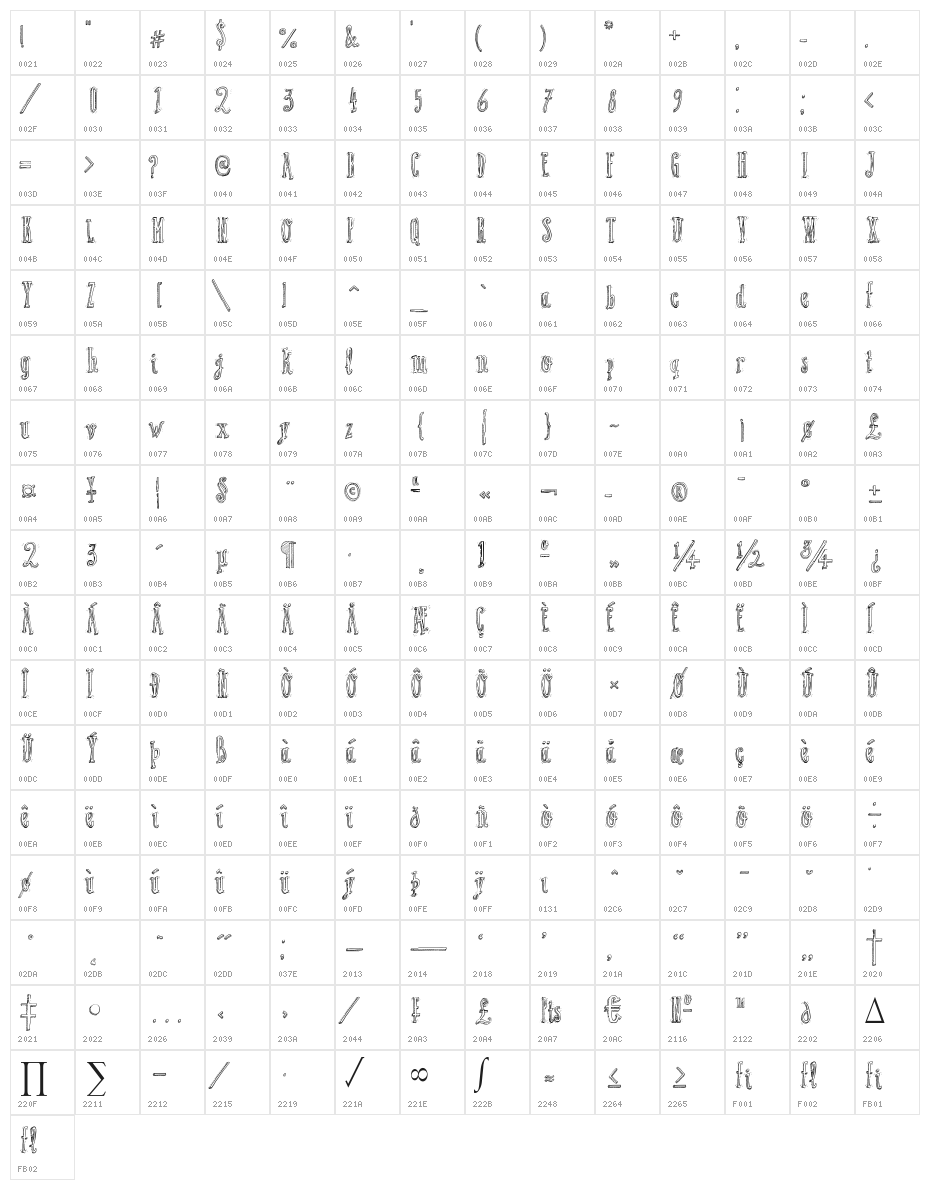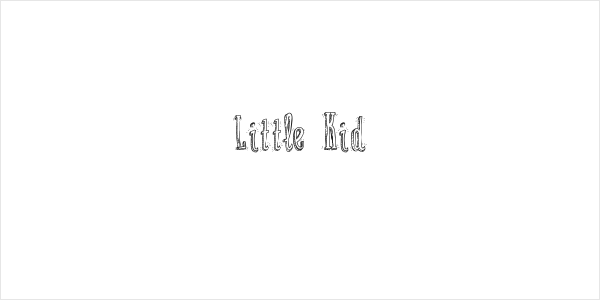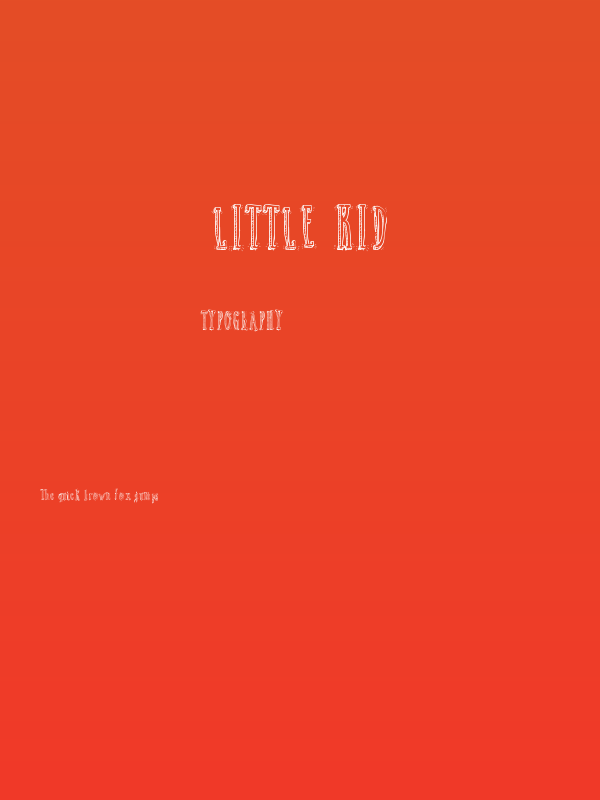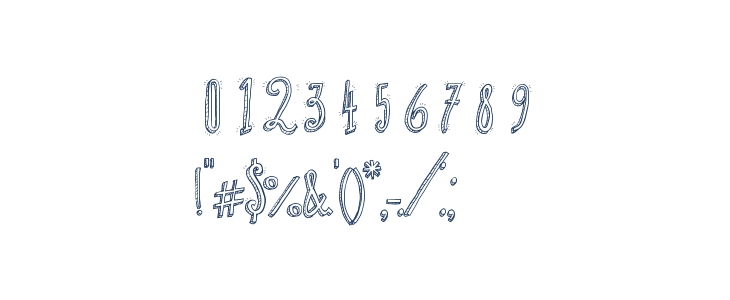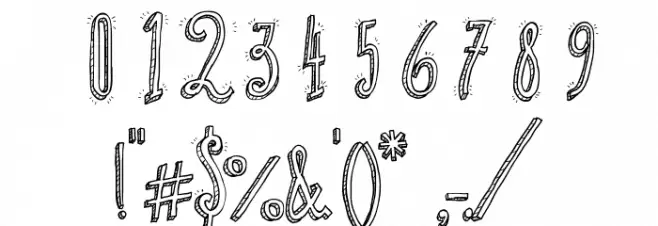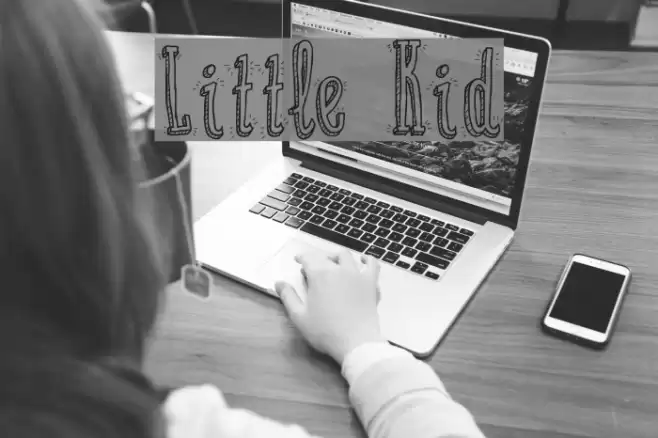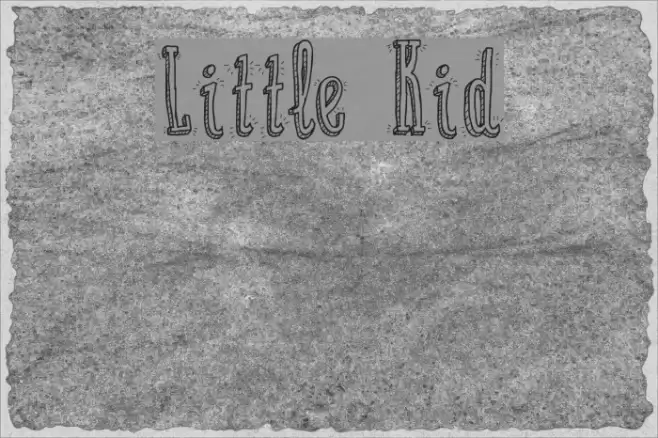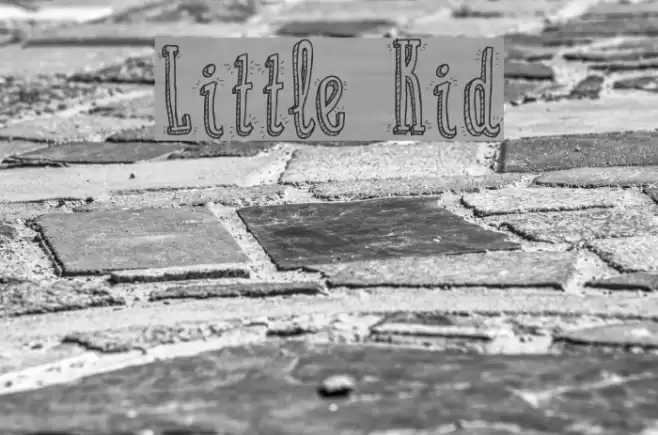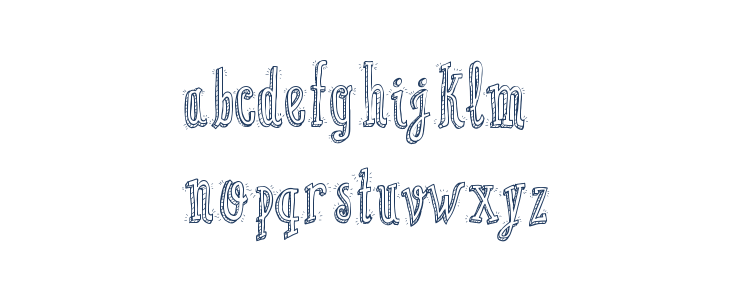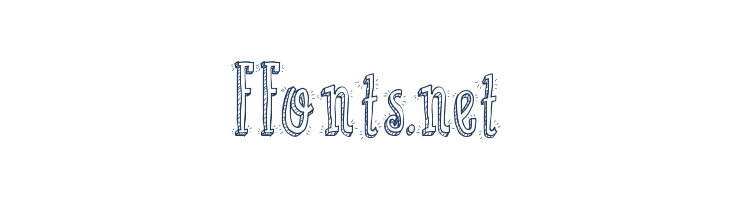
Little Kid Font
This playful and whimsical font features a hand-drawn style with a slightly irregular and sketchy appearance. The letters are tall and narrow, with a decorative outline that adds a sense of fun and creativity. Each character has unique embellishments, such as small dots and lines, giving the font a lively and energetic feel. The uppercase and lowercase letters maintain a consistent style, while the numbers and special characters are equally expressive, making the font versatile for various design needs. Its quirky and artistic nature makes it ideal for projects that require a touch of personality and charm.
| Overall Style | Whimsical |
| Proposed Projects | Ideal for children's books, playful branding, greeting cards, and creative posters. |